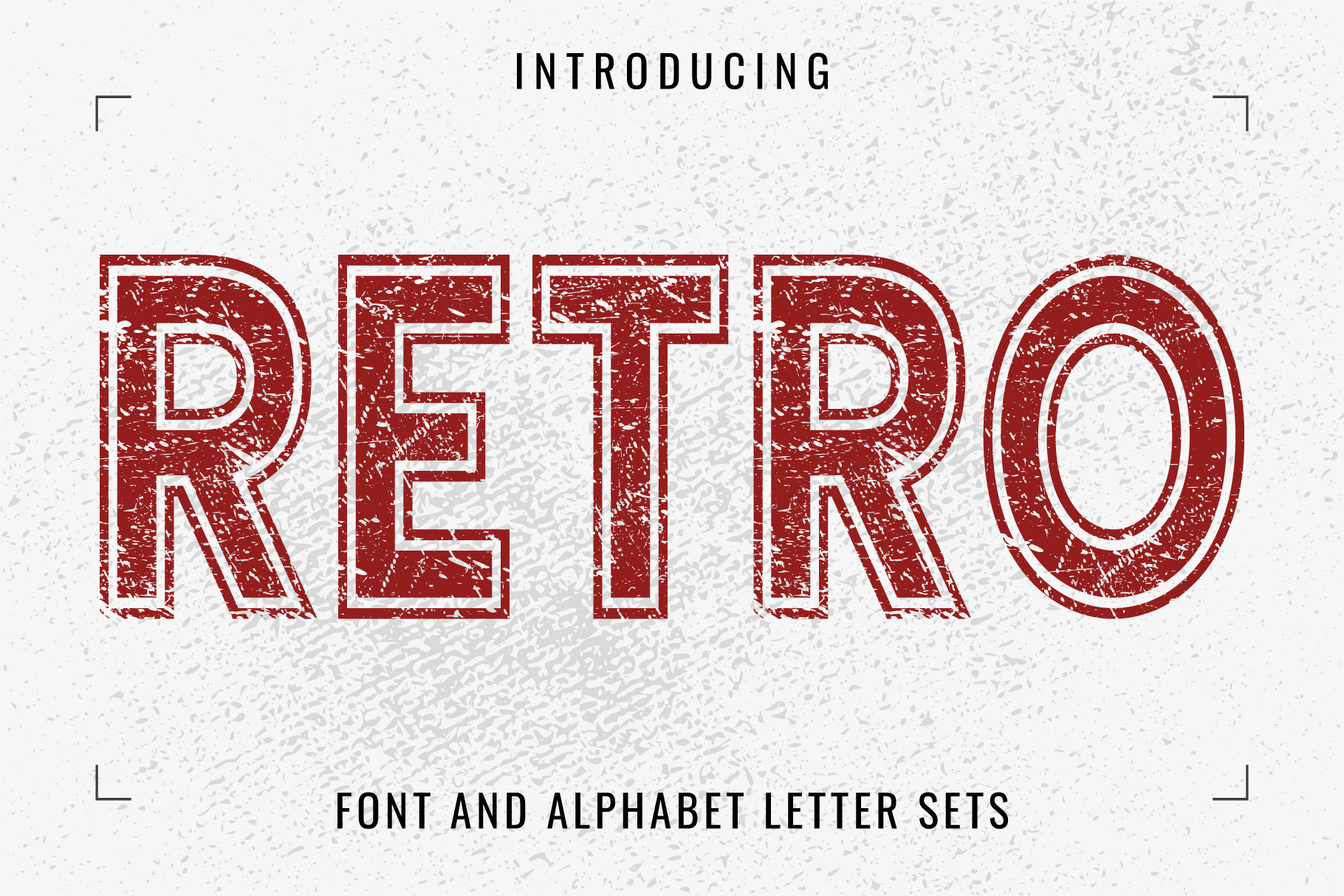
Retro Font
Introducing “Retro Font” – a retro vintage and grunge-distressed display font that will make each of your designs stand out more. Perfect for logos, posters, websites, T-shirts and more. Elevate your projects with this unique font, and you will love the results.
- This entire font is capitalized.
- Letters: A B C D E F G H I J K L M N O P Q R S T U V W X Y Z.
- Numbers: 0 1 2 3 4 5 6 7 8 9.
- Excluding punctuation.